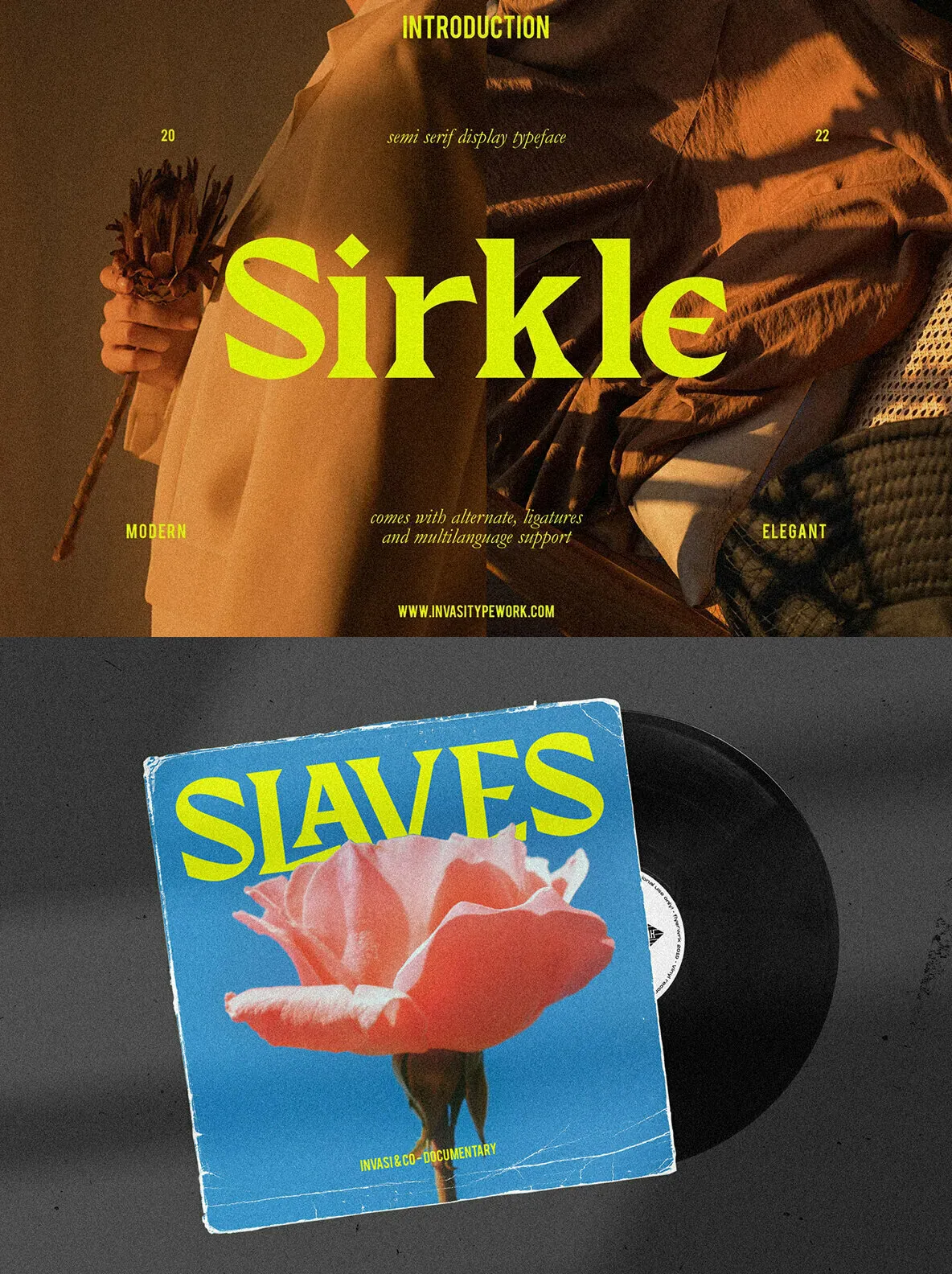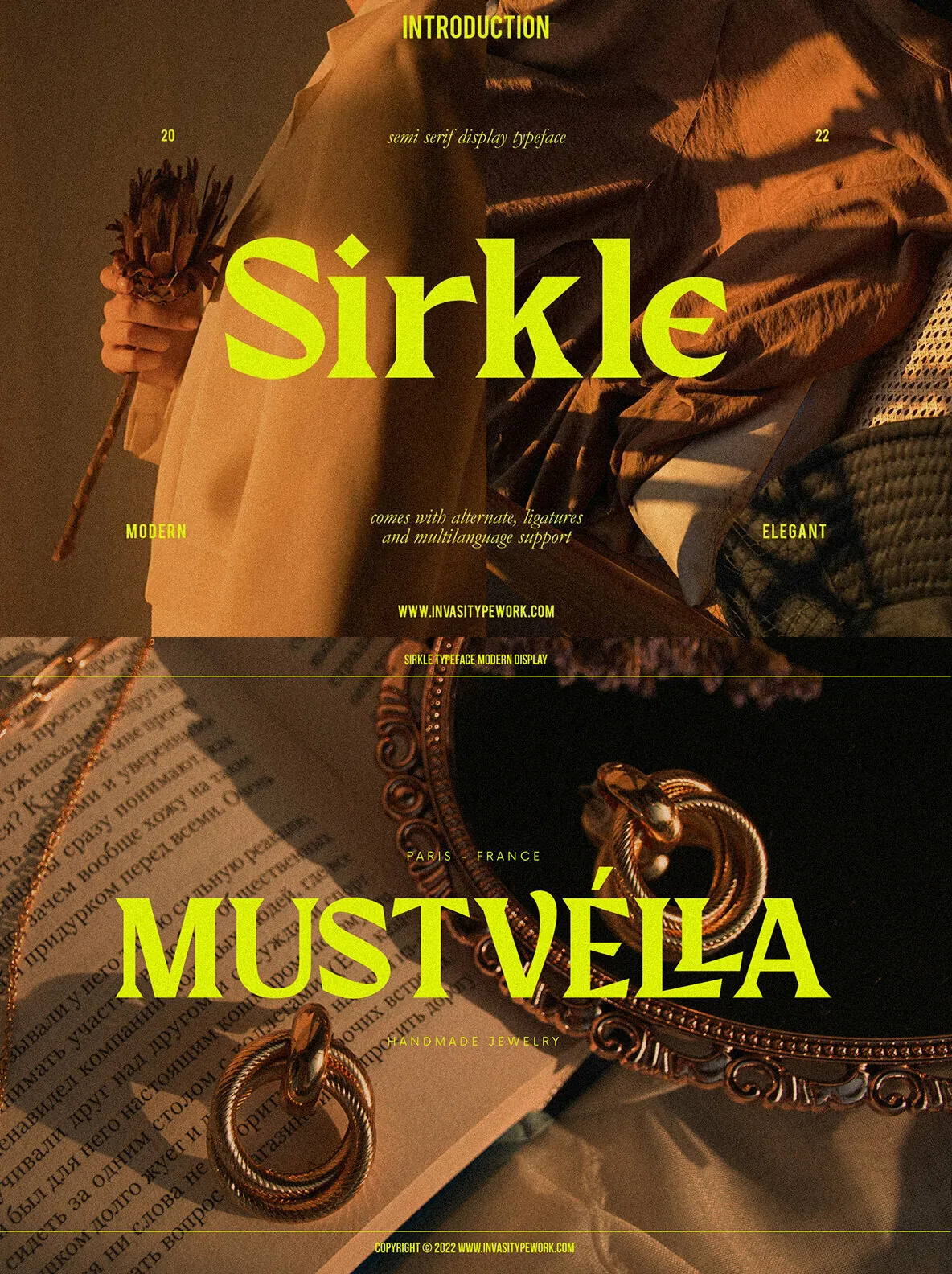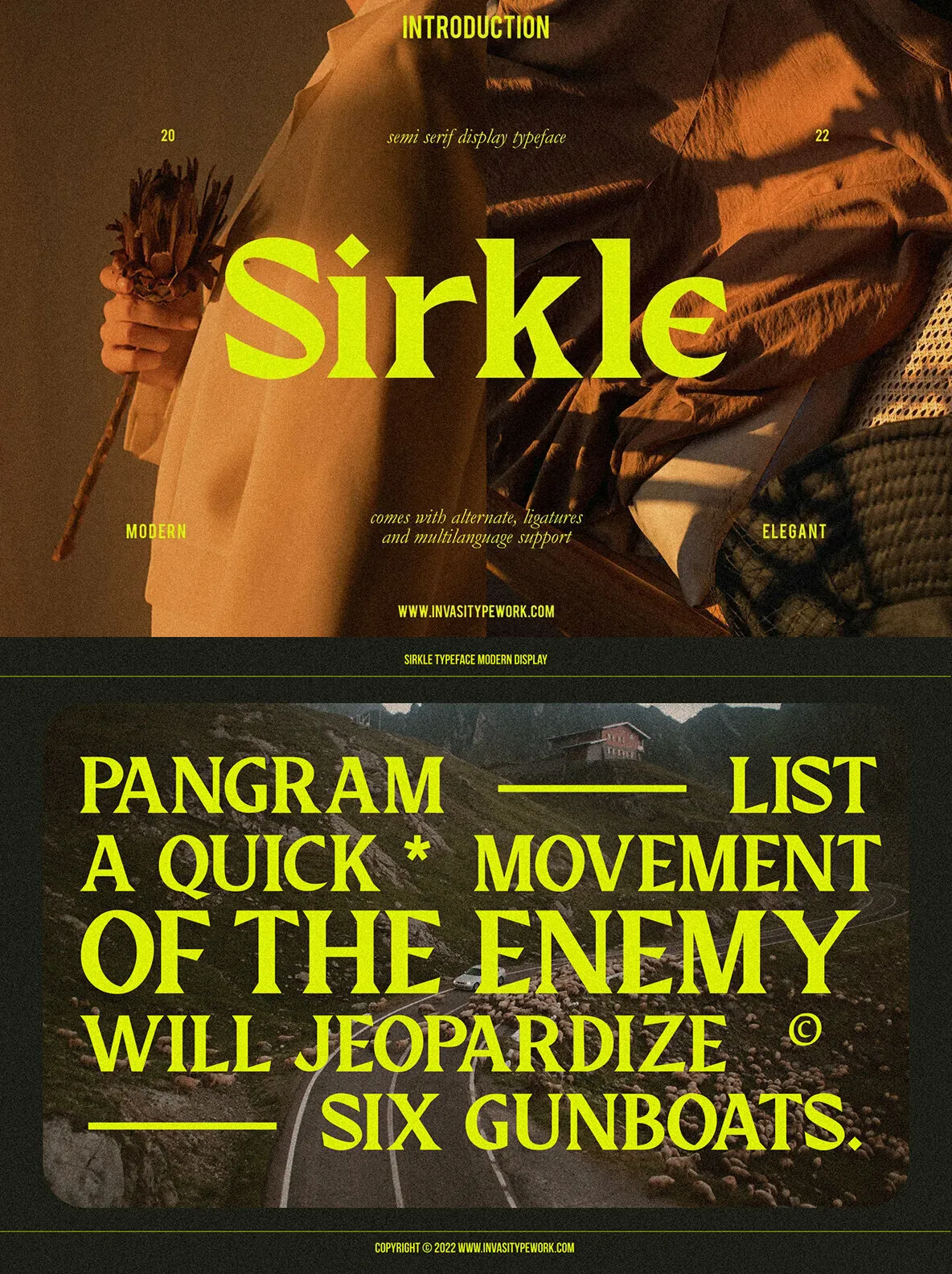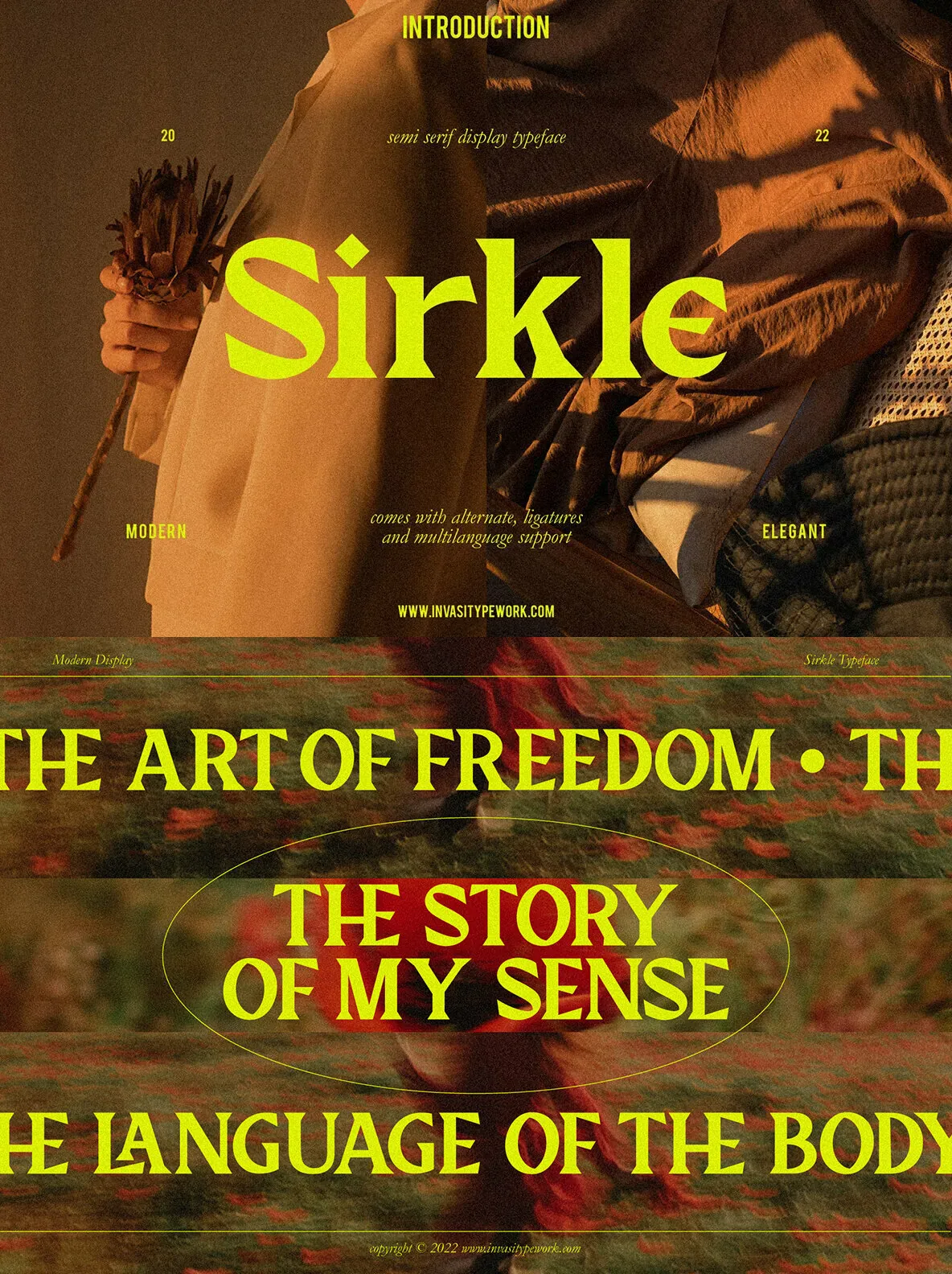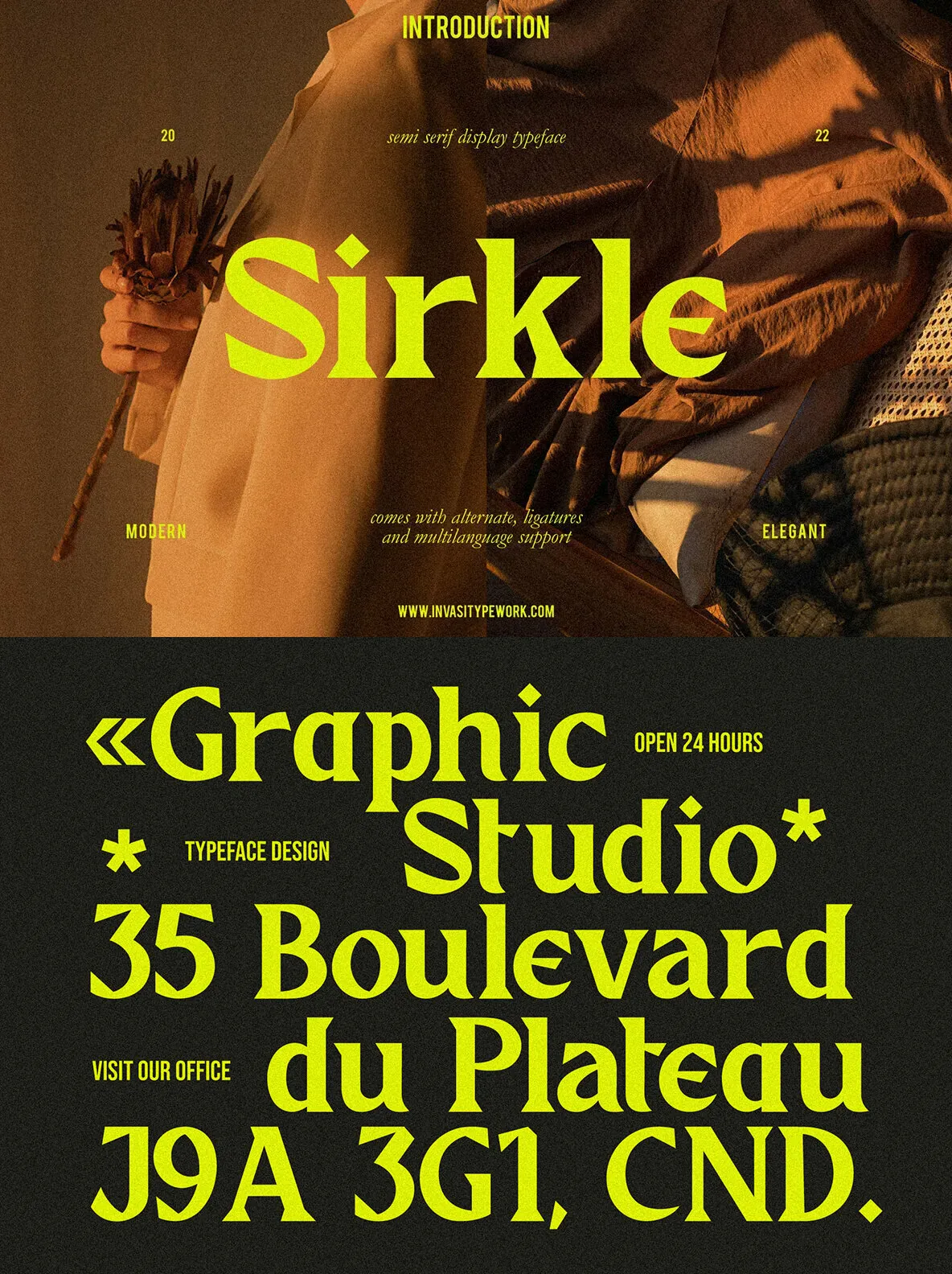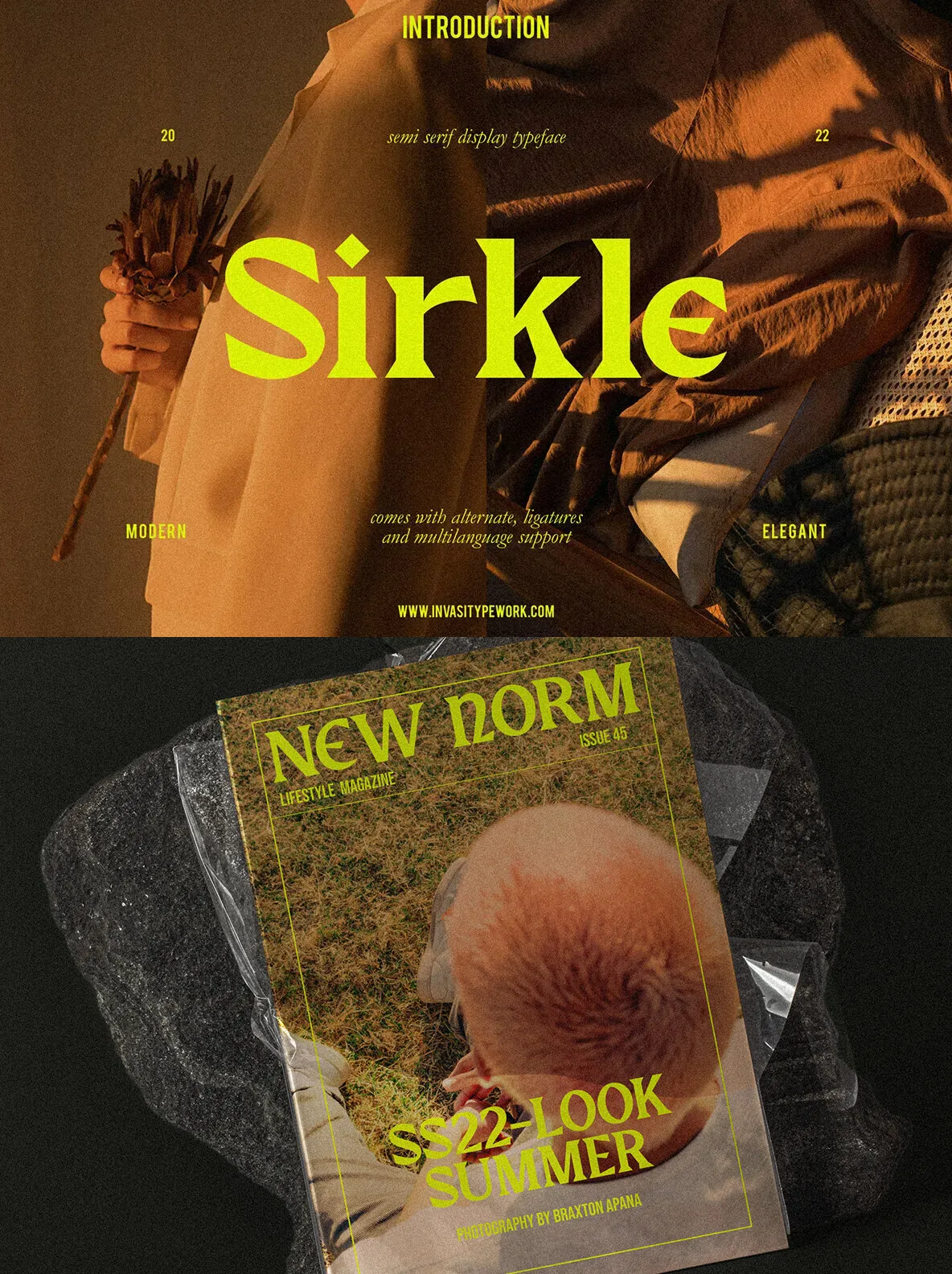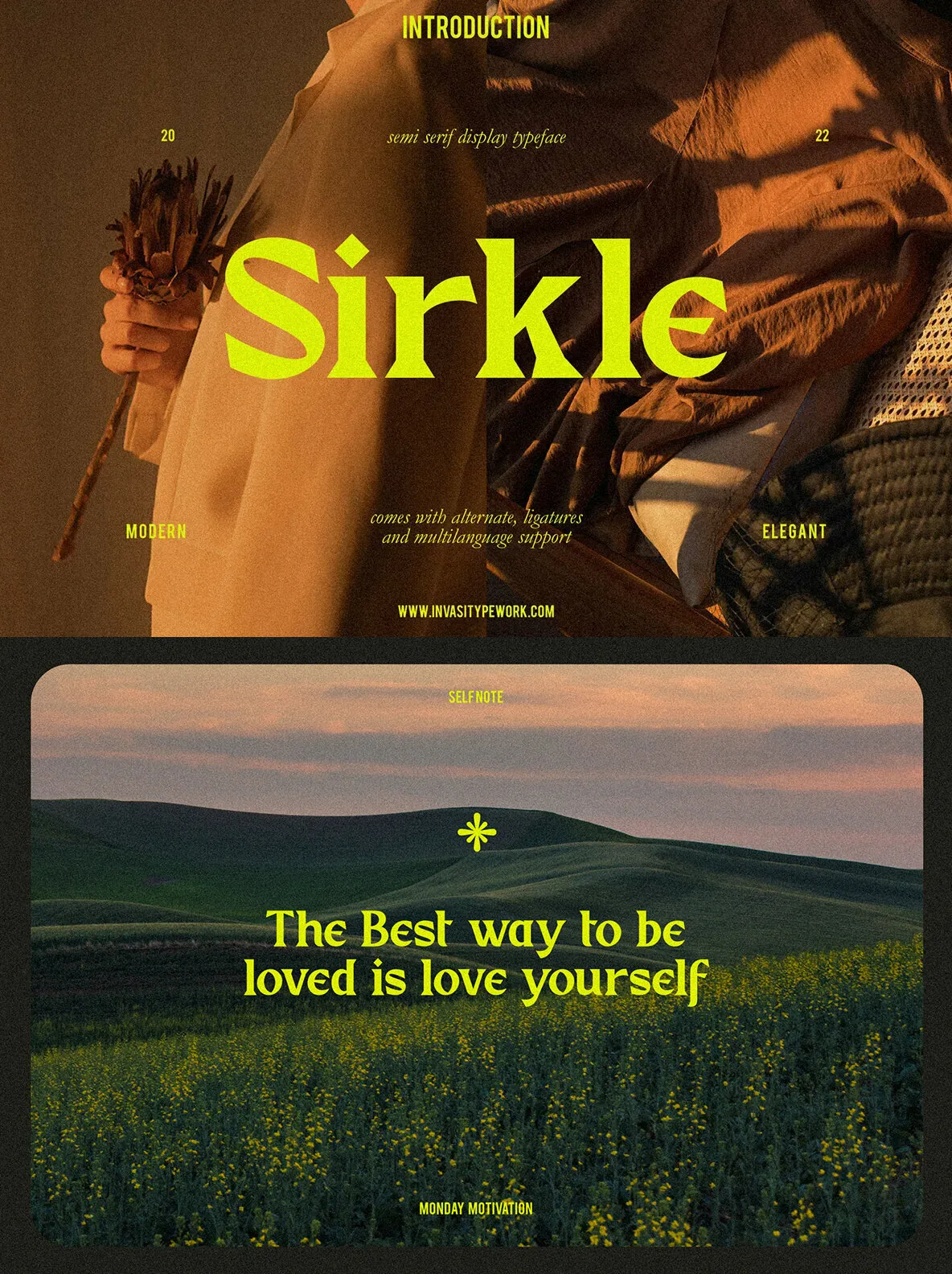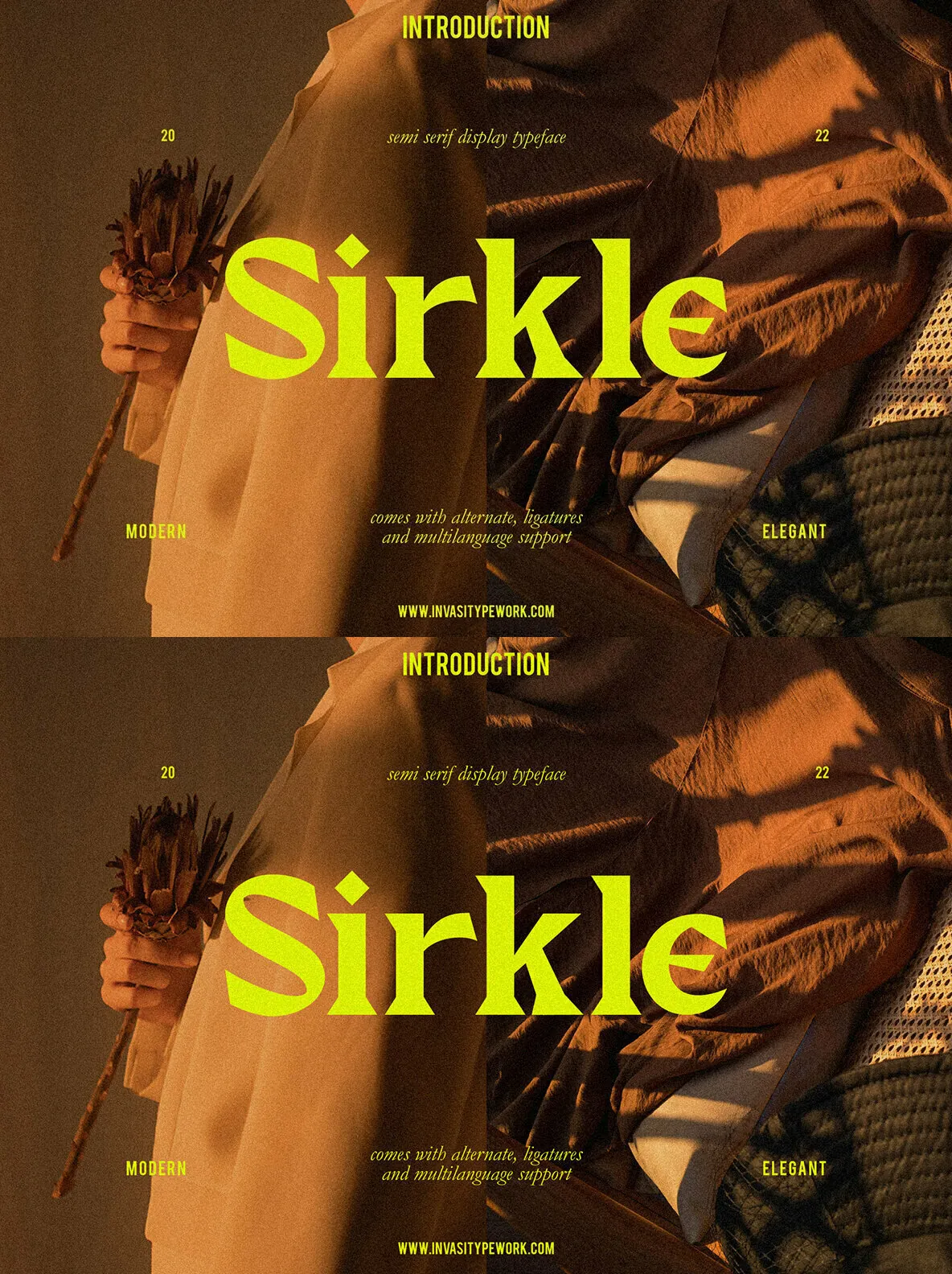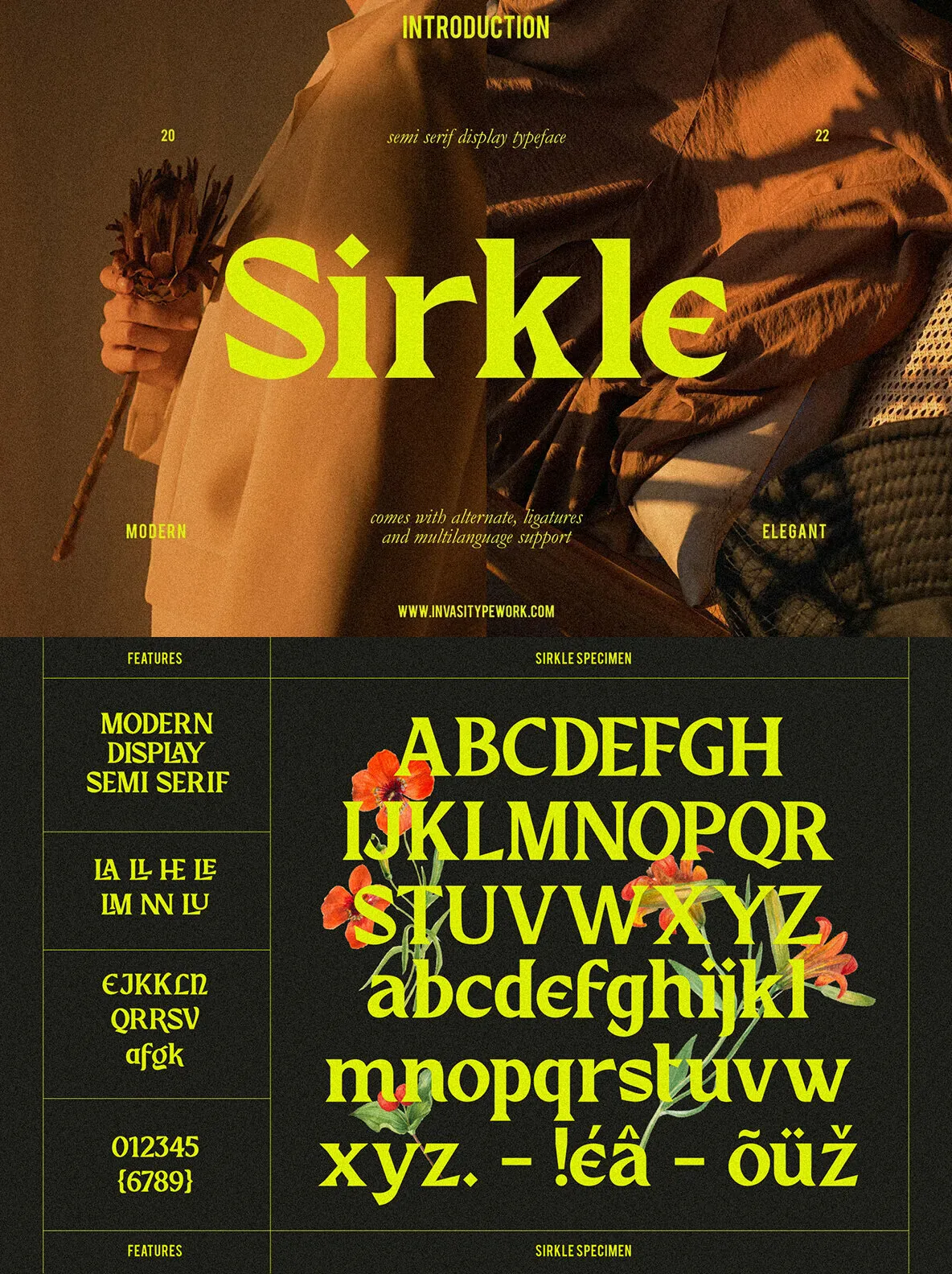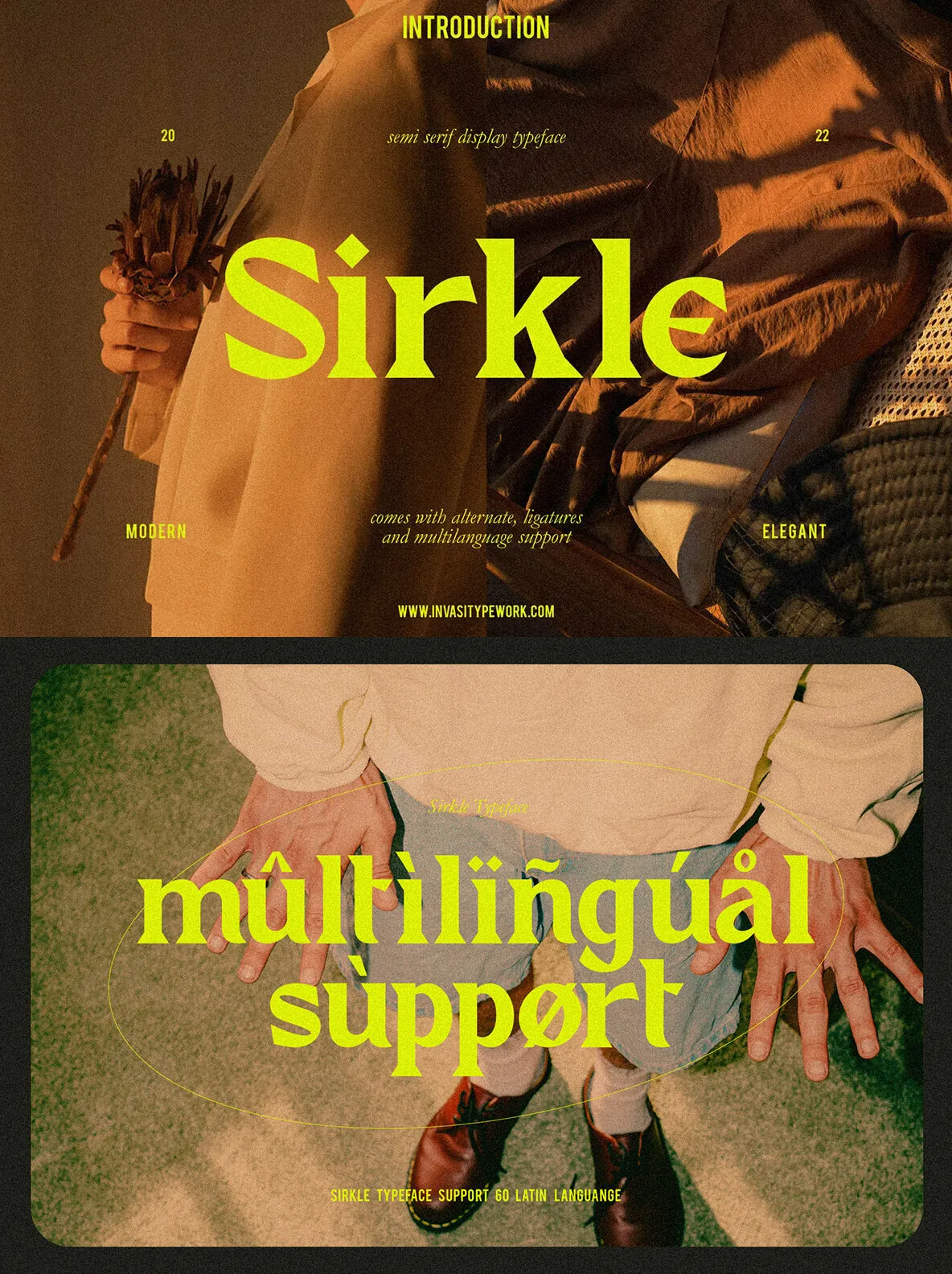
Sirkle — Sharp Curves, Modern Edge
Sirkle is a semi-serif display typeface built from sharp and curvy forms. Every letter is handcrafted to fit with the next, without exception. The result is a modern, edgy style with a distinctive presence across branding and headline settings.
Sirkle includes ligatures and alternates, and it supports 60+ Latin-based languages. Use it when you need a bold typographic voice that stays precise and intentional, whether you are building an identity system or setting expressive titles.
The Sirkle is ideal for logotype, signage, posters, packaging, and much more.